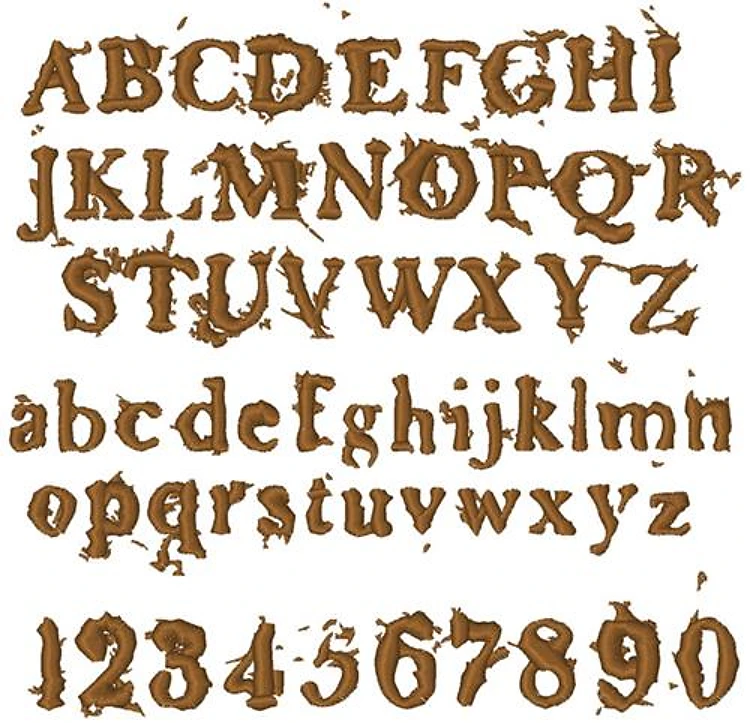
Decorative machine embroidery font that mimics the texture of mud, featuring uppercase letters with uneven edges. Ideal for casual designs on bags and apparel. Available in BX font and Embrilliance formats.